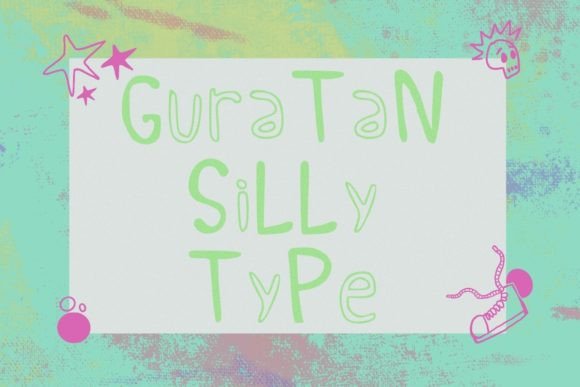
Journey into the world of Silly Type, a script font family that captures the essence of handwritten notes, adding a touch of whimsy and individuality to your digital creations. Each letter dances across the screen with a unique charm, bringing life to your words.
Immerse yourself in the playful spirit of Silly Type, letting your imagination soar as you design logos, branding materials, social media posts, and more. Its quirky personality shines through, creating a lasting impression that sets your work apart.
With Silly Type, you'll never run out of creative possibilities. It's the perfect font for adding a personal touch to invitations, greeting cards, and other printed materials. Its handwritten style brings warmth and authenticity to every project, making it a go-to choice for those seeking a unique and captivating aesthetic.
Step into the world of Silly Type and let your creativity flow. Explore the endless possibilities as you transform your designs into works of art. Join the growing community of artists, designers, and creatives who have discovered the magic of Silly Type.